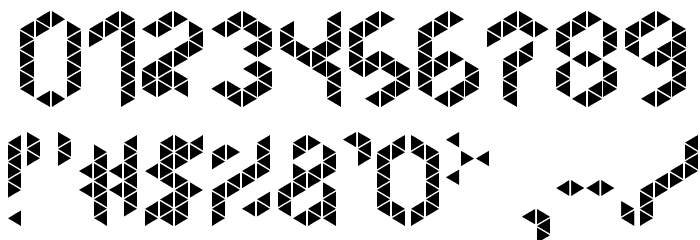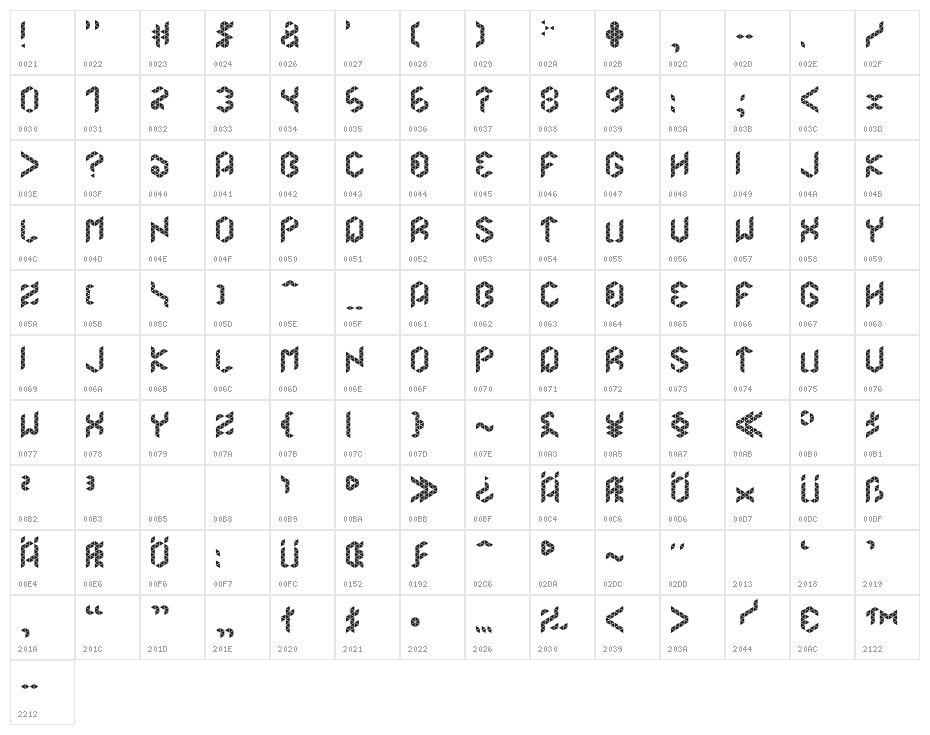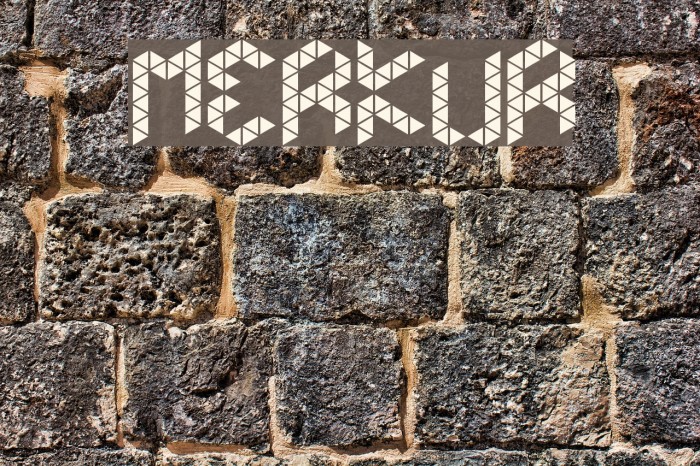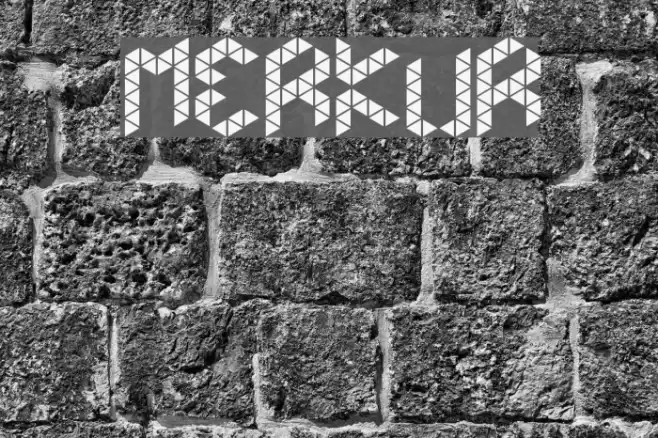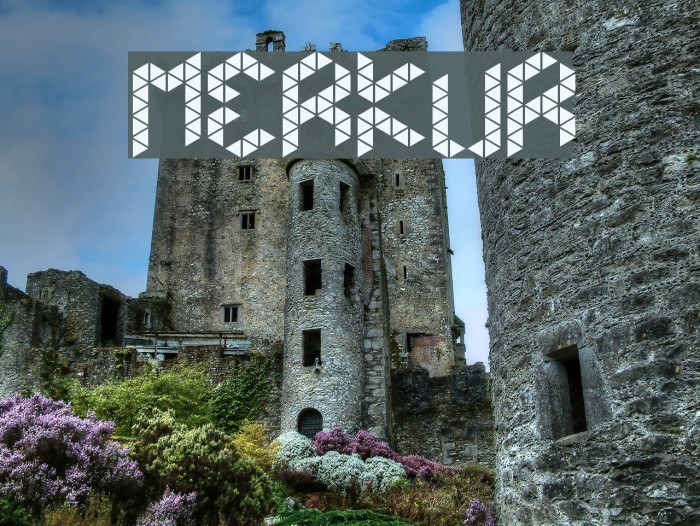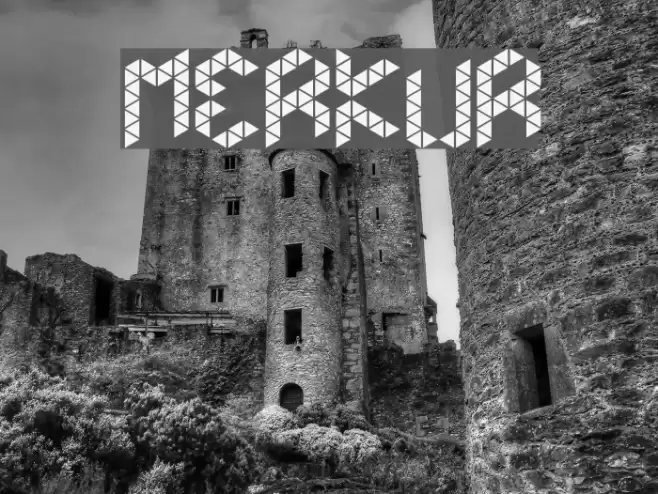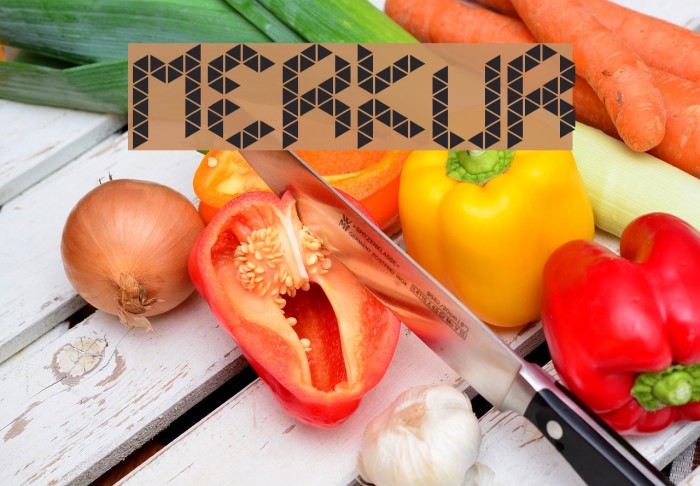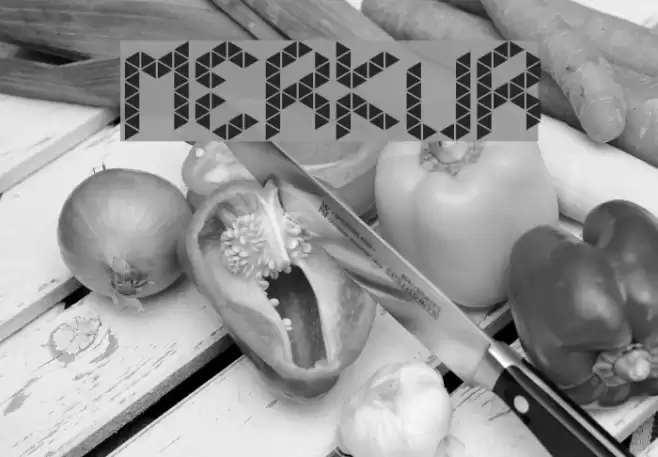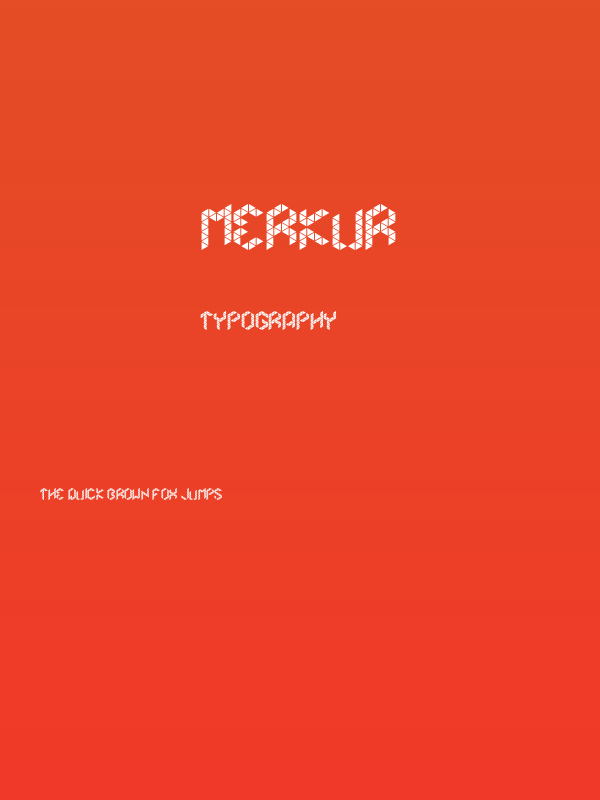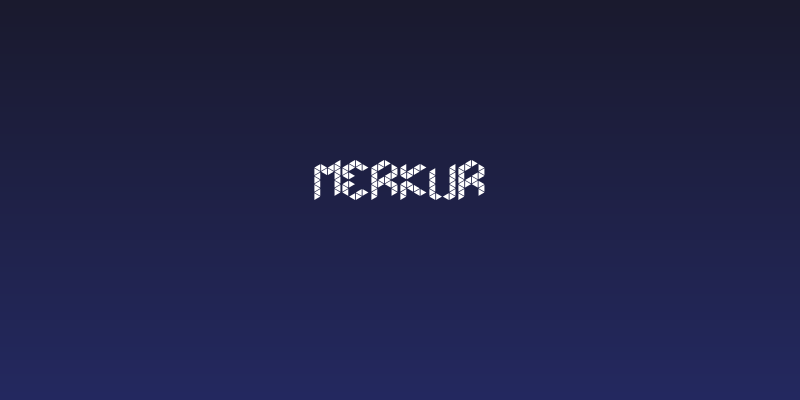
Merkur Font
Merkur Description
This font features a unique geometric design composed entirely of small triangles, creating a mosaic-like appearance. Each character is constructed with precision, forming angular and sharp edges that give a modern and digital feel. The uppercase and lowercase letters maintain consistency in style, with the same triangular pattern applied uniformly across all characters. Numbers and special characters follow the same design principle, ensuring a cohesive look throughout. The font's distinct style makes it stand out, ideal for projects that require a futuristic or tech-inspired aesthetic.
| Use Case | Logos, Headlines, Digital Art |
| Proposed Projects | Ideal for tech-related branding, digital art projects, futuristic posters, and modern logo designs. |